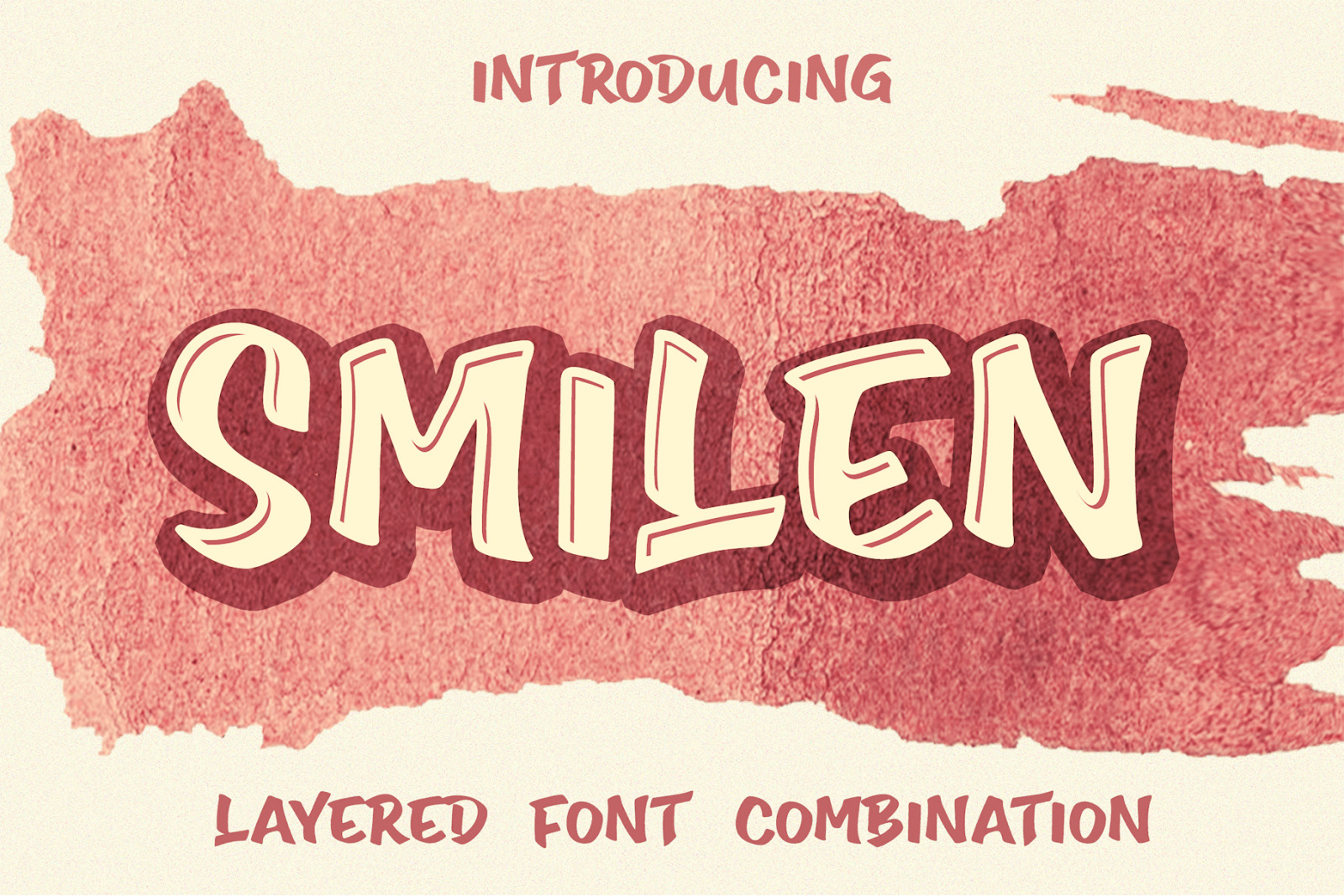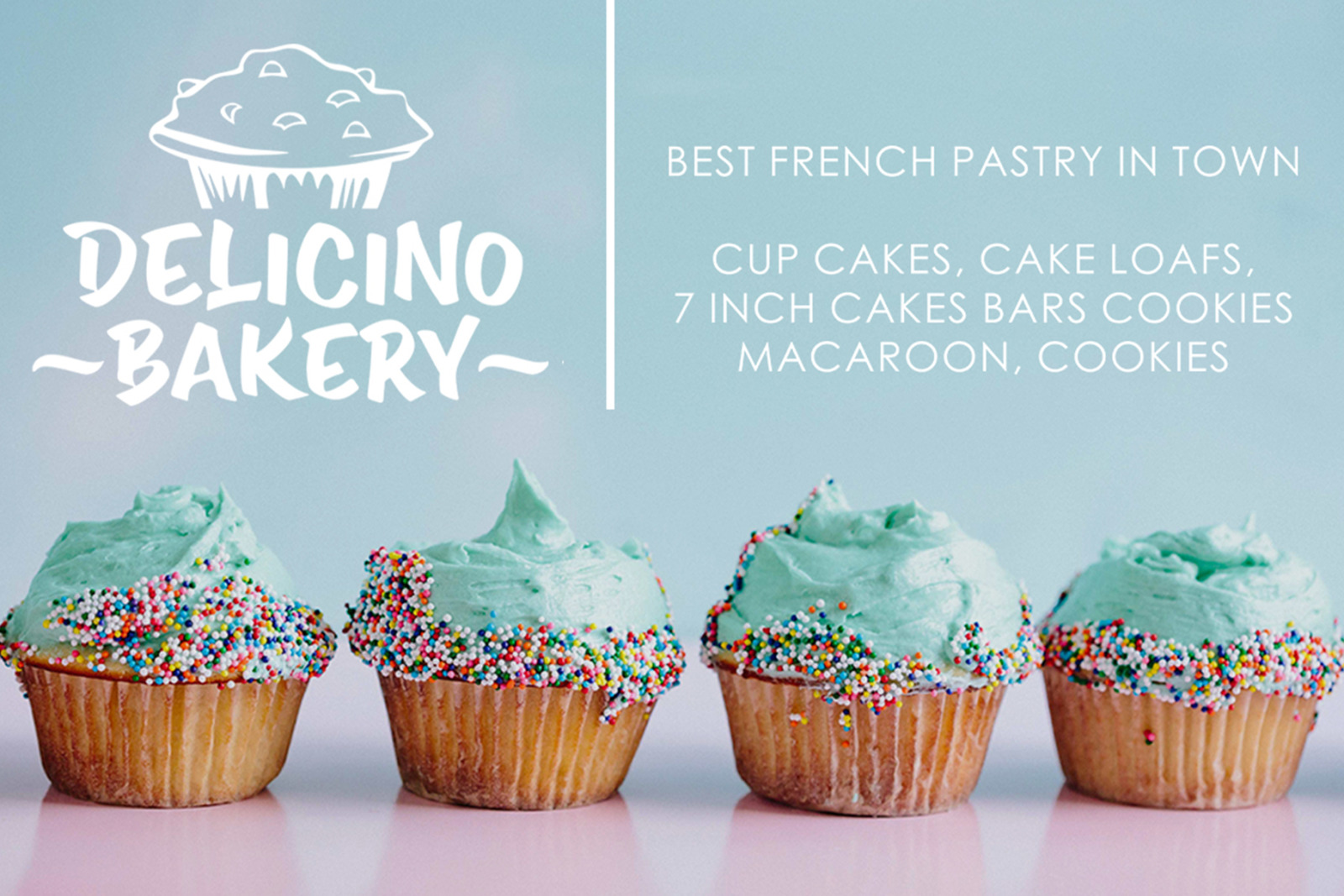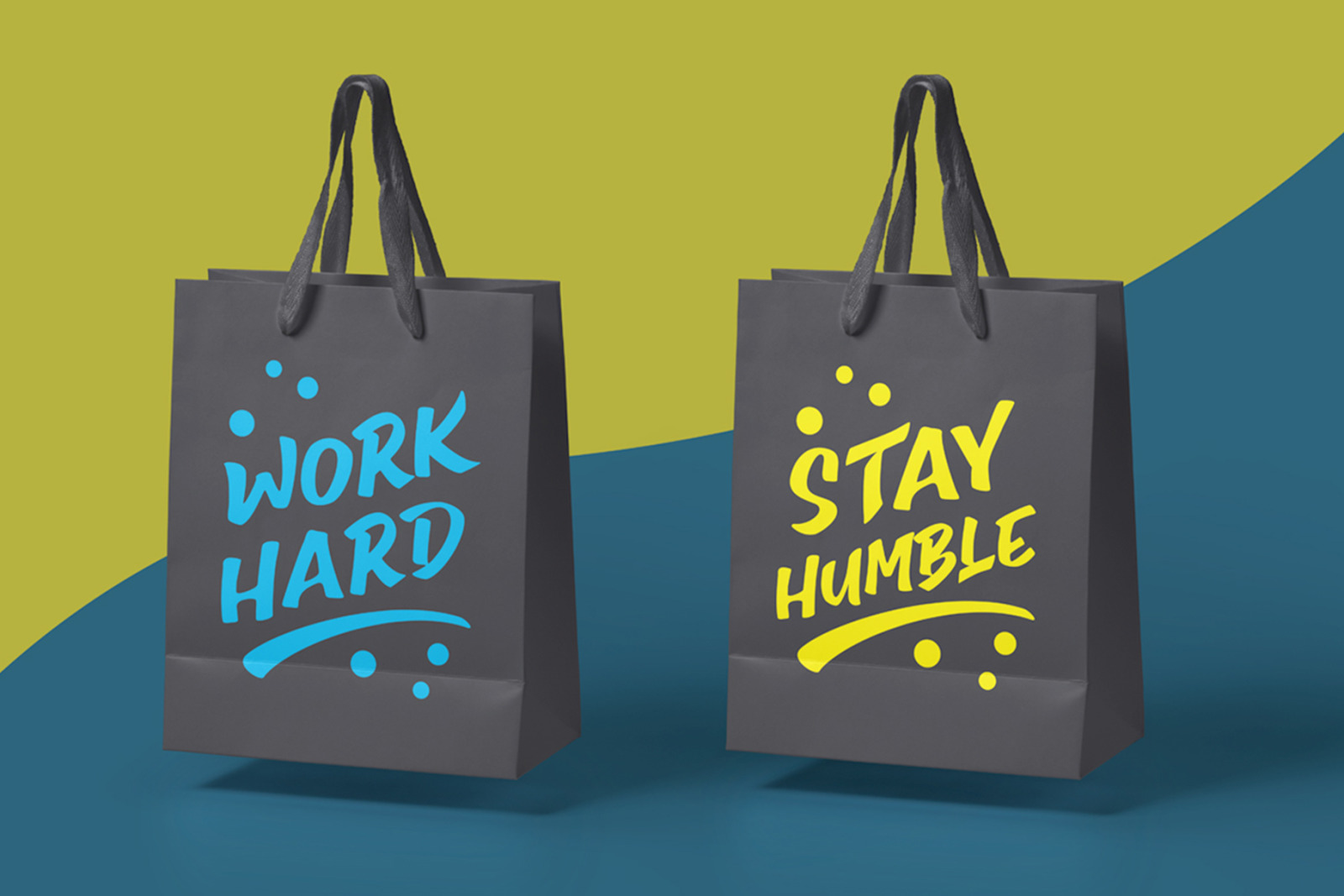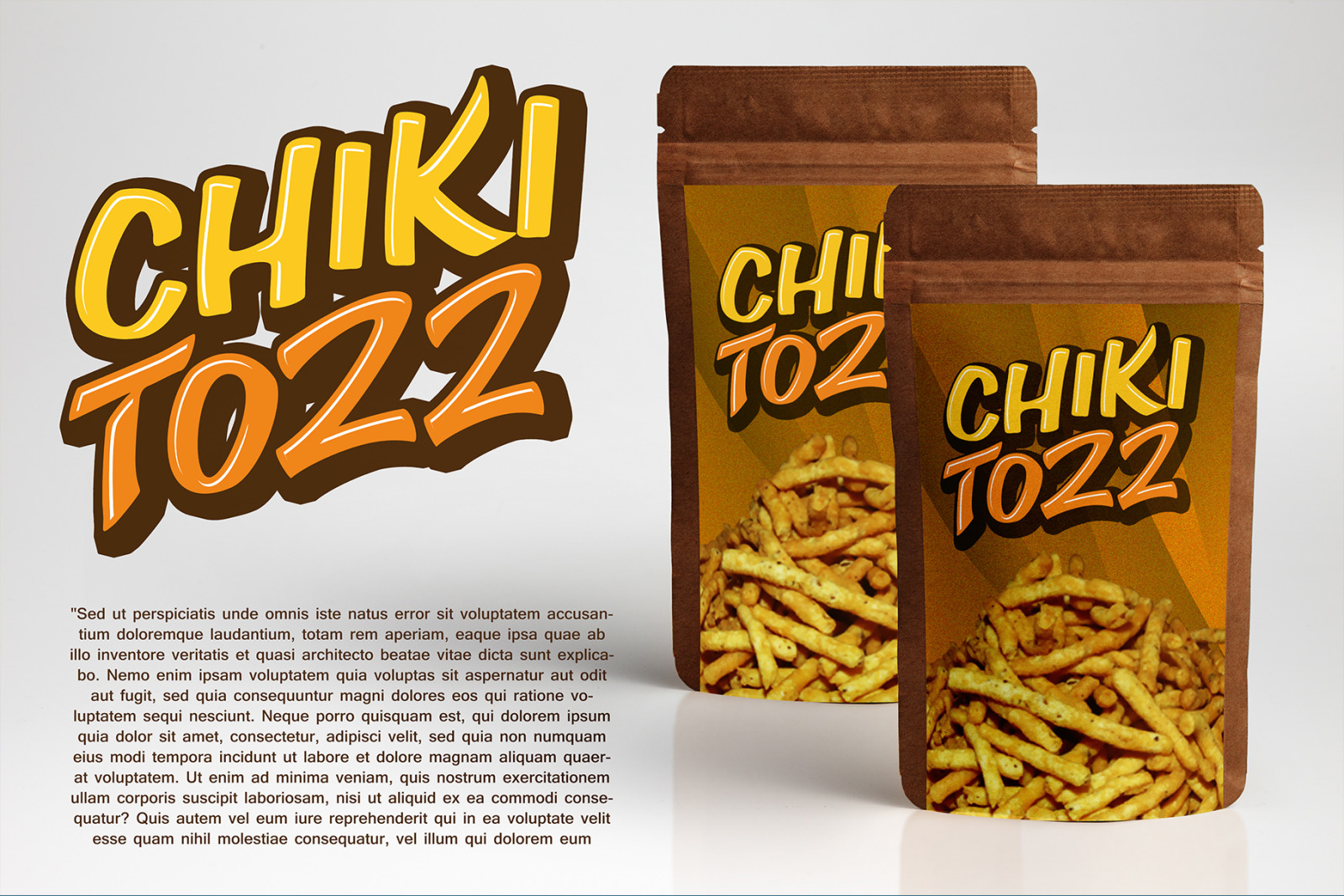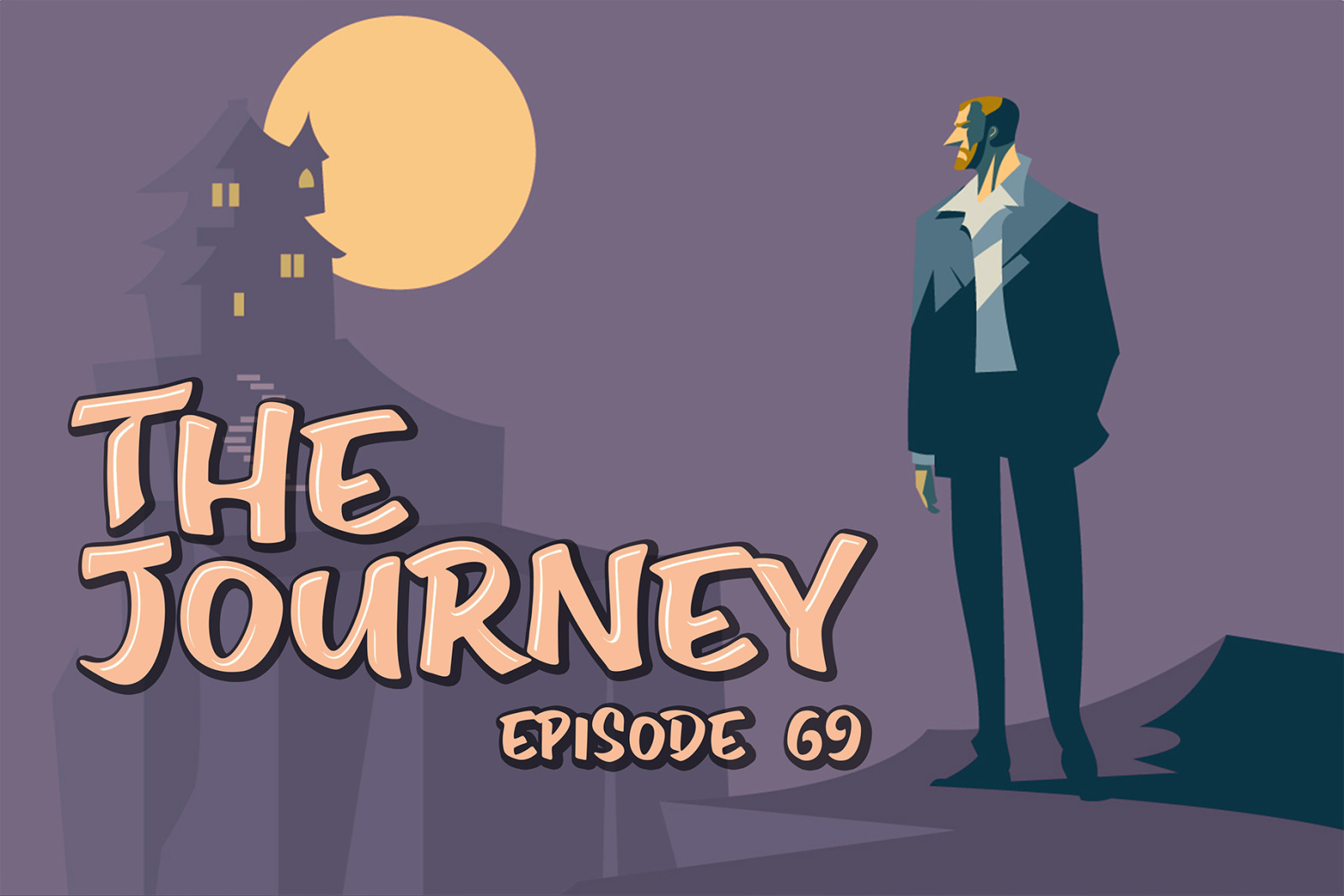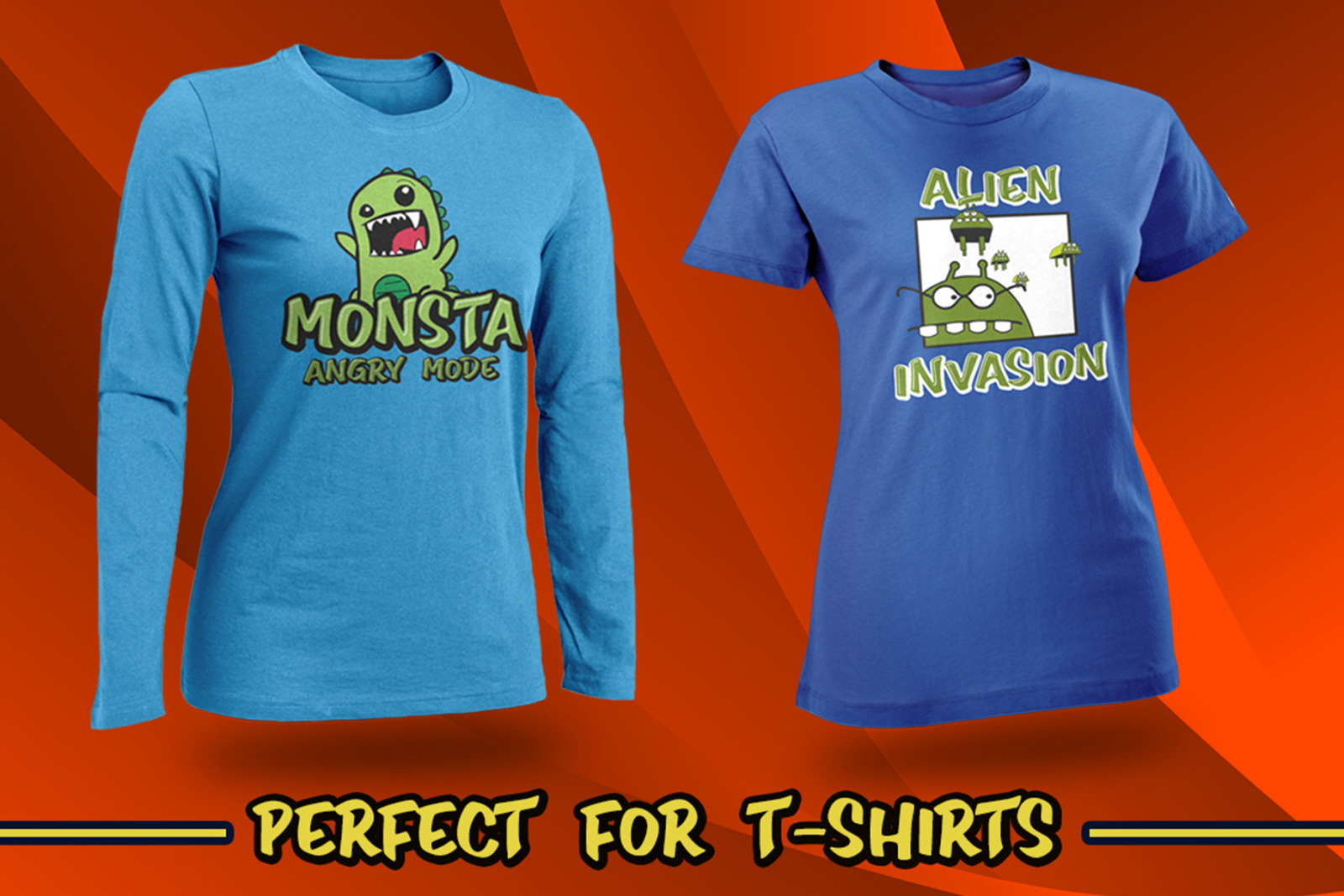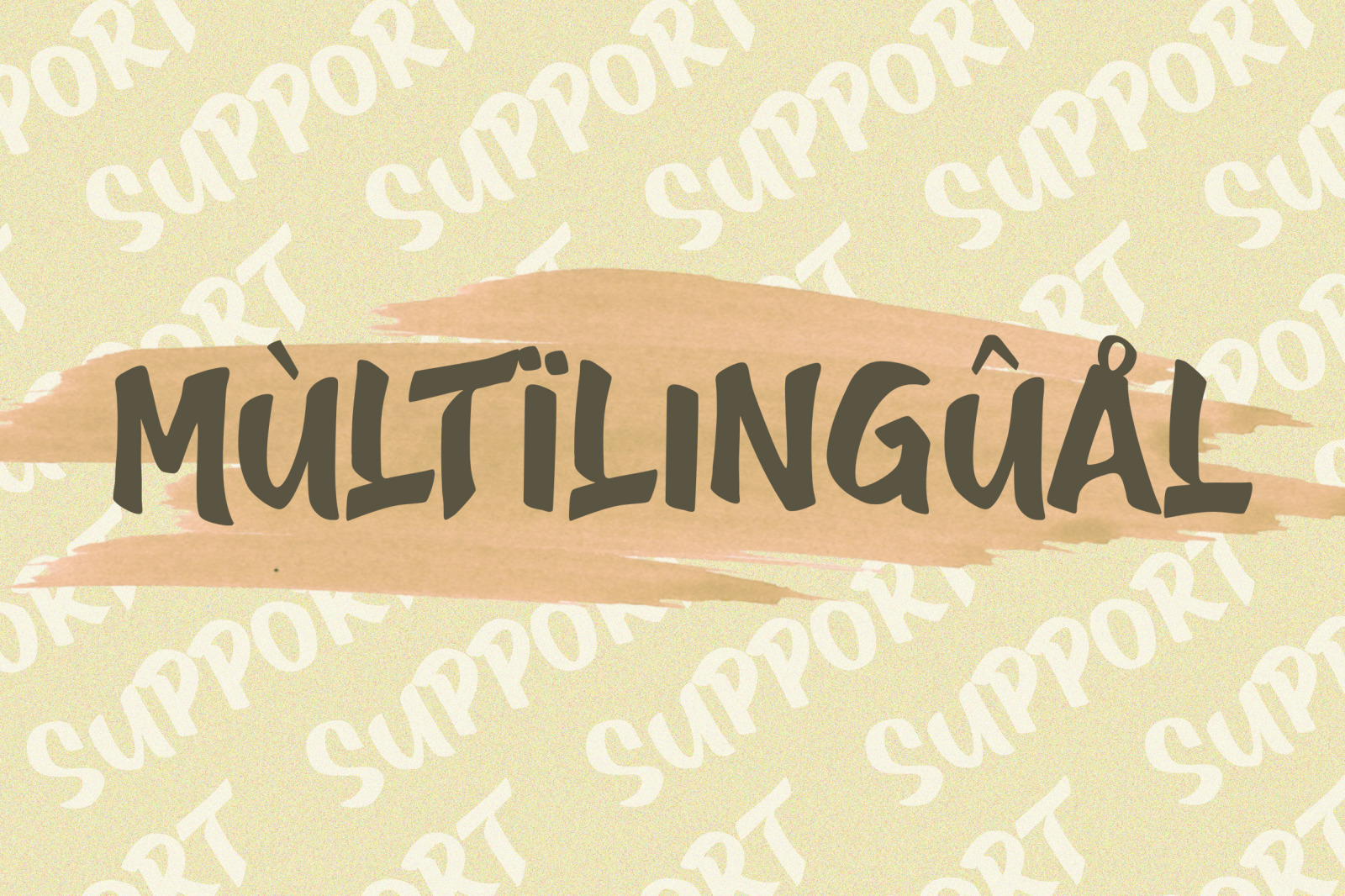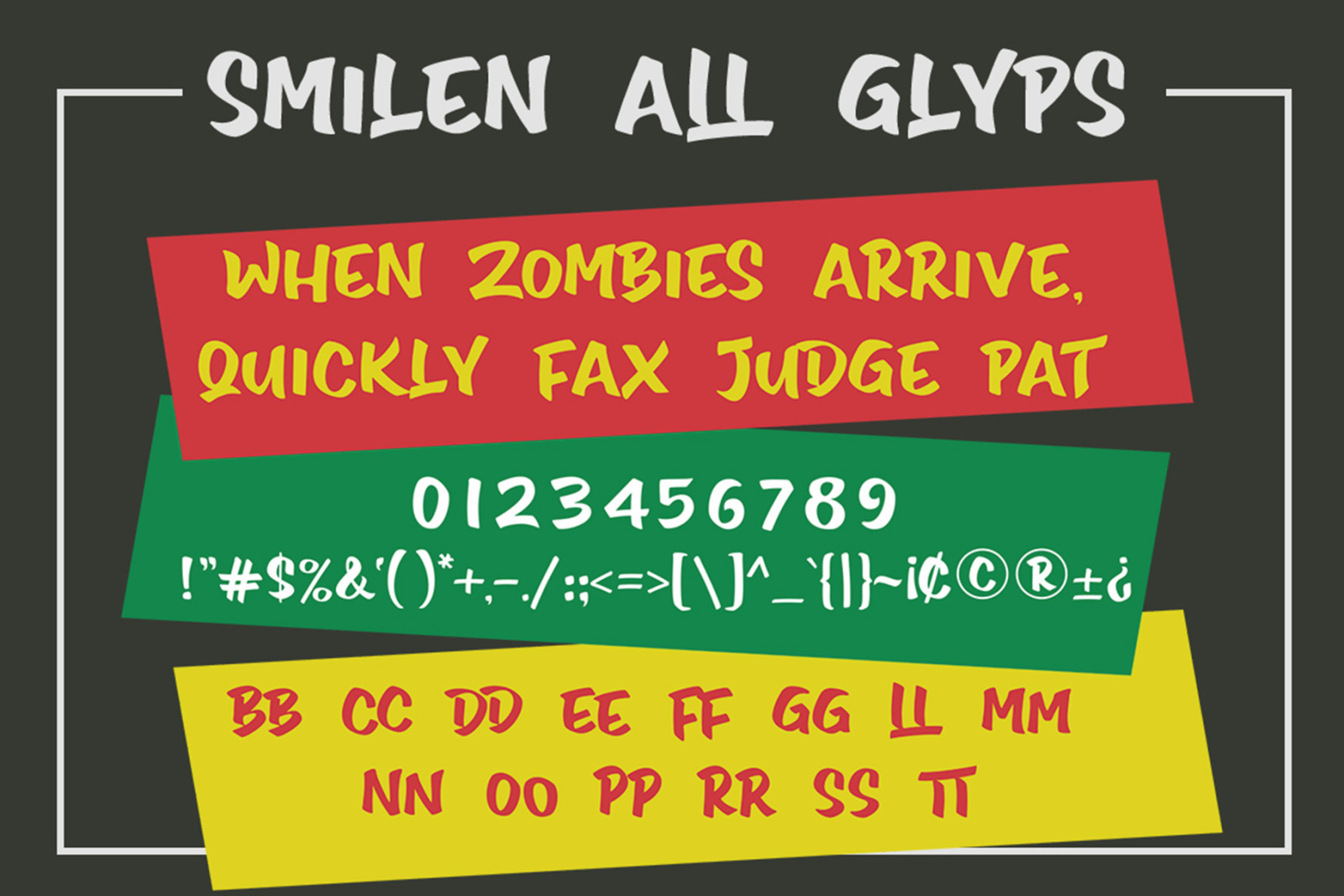
Smilen Extrude Font
Smilen is a layered font combination. The unique characteristics of Smilen make it very suitable for various purposes such as quotes, t-shirt designs, flyers, youtube channels, labels, logos etc.